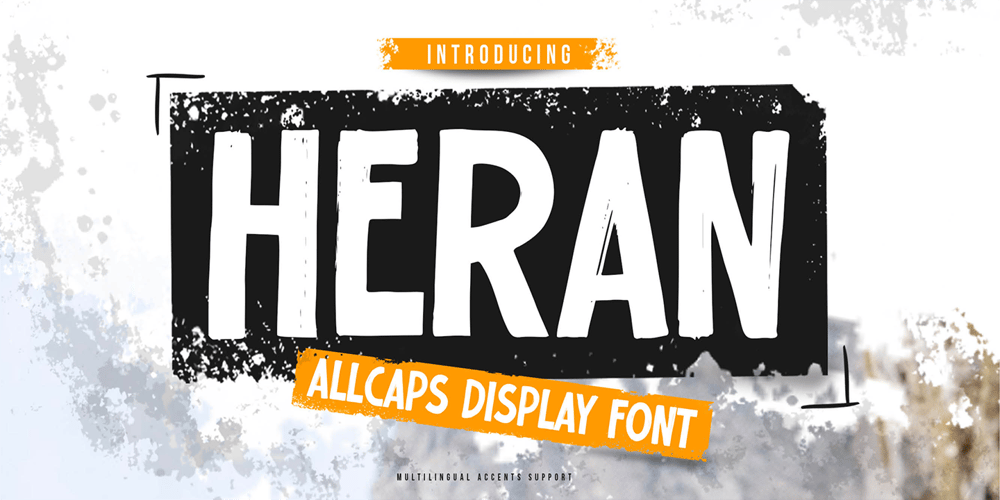
Heran
Heran font
Heran Font Family was designed by Abdul Malik Wisnu, Anang Fibriyanto and published by Gassstype. Heran contains 1 styles and family package options. Hello Everyone, introduce our new product Font HERAN This Is All Caps Display Font.This is a Textured Natural Style and classy style with a clear style and dramatic movement.This font HERAN is great for your next creative project such as logos, printed quotes, invitations, cards, product packaging, headers, Logotype, Letterhead, Poster.That is has charming, authentic and relaxed characteristic more natural look to your text.